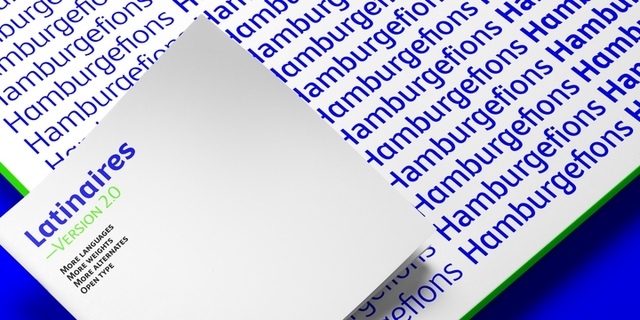
Latinaires Pro Font
Latinaires Pro Font is perfect for Latin cultural festivals, Spanish language publications, international corporate communications, multilingual educational materials, Latin American tourism branding, professional translation services, Hispanic heritage celebrations, cross-cultural business presentations, global academic research, and sophisticated international design projects.
What makes Latinaires Pro Font so exciting is its masterful embodiment of Latin linguistic heritage and international sophistication that captures the rich cultural diversity of Latin languages through professionally engineered typography designed for global communication excellence. This culturally informed typeface features refined letterforms with Latin-inspired proportions and internationally optimized character variations that immediately convey cultural authenticity, professional competence, and the unifying power of shared linguistic heritage. The font's professionally constructed design and culturally respectful aesthetic create an instant sense of international credibility and cross-cultural understanding, making it ideal for projects that need to communicate Latin cultural pride, professional international standards, and the transformative power of multilingual communication to audiences seeking authentic cultural experiences and meaningful cross-cultural connections.
The Latinaires Pro Font family typically includes comprehensive professional weights and international styles, often featuring light through bold variations along with culturally appropriate italic versions and extensive language support. Professional Latin font families frequently offer advanced character sets including comprehensive diacritical marks, Latin script variations, and international symbols that ensure optimal typography across diverse multilingual communication requirements and professional cross-cultural applications.
The Latin nature of Latinaires Pro Font makes it particularly effective for targeting demographics that value cultural authenticity and international communication in their educational and professional pursuits. International marketers and cultural educators will find this font especially valuable for materials that must establish immediate cultural credibility and connect with audiences seeking authentic Latin cultural experiences and meaningful international communication opportunities.
What sets Latinaires Pro Font apart is its ability to convey Latin cultural authenticity while maintaining the professional standards necessary for effective international business and academic communication. This balanced characteristic makes it suitable for both traditional cultural preservation applications and contemporary global business contexts where projecting cultural respect and maintaining international professionalism must work together harmoniously.
Professional designers recognize that Latinaires Pro Font brings invaluable cultural credibility to projects across industries including international business, cultural education, academic research, and cross-cultural services. Its Latin character and professional appeal make it essential for organizations whose mission centers on promoting cultural understanding, facilitating international communication, and creating meaningful connections between Latin heritage and contemporary global collaboration.
The systematically crafted cultural authenticity of Latinaires Pro Font ensures consistent international messaging across all Latin-focused communication applications while honoring the fundamental importance of cultural respect and linguistic accuracy in professional cross-cultural typography.